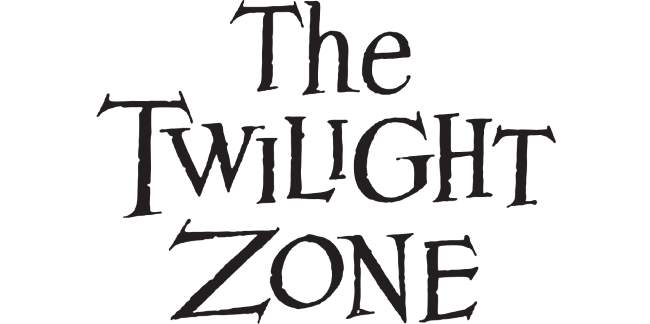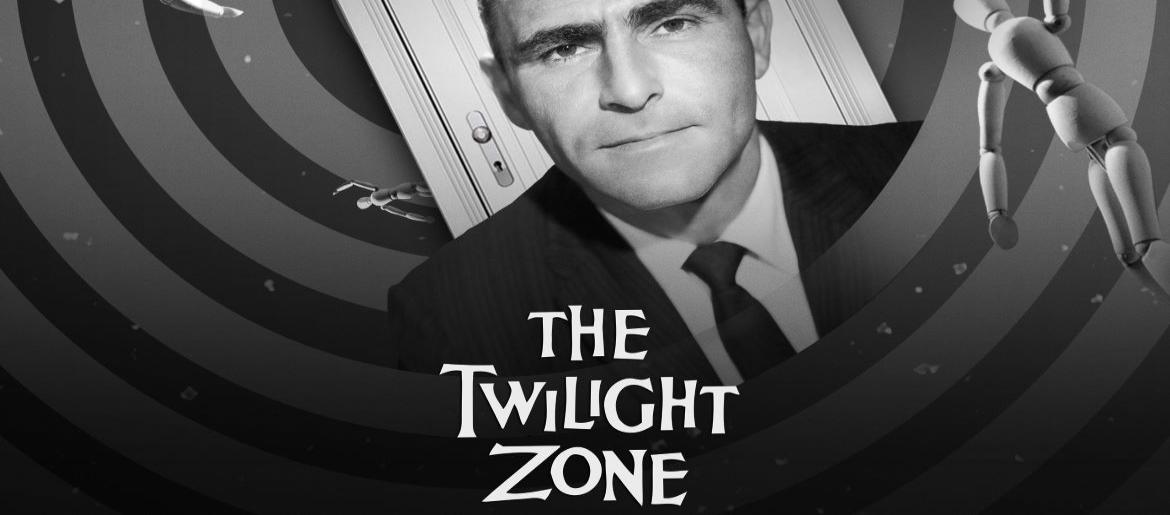
The Twilight Zone Font
The Twilight Zone Font stands as one of television’s most memorable typefaces, forever linked to the eerie, mind-bending atmosphere of the classic anthology series. Its slightly warped serif style creates an immediate sense of mystery and suspense, perfectly reflecting the show’s unsettling tales that drift between reality, fear, and the unknown.
Designers frequently use the Twilight Zone font for retro themes, mysterious posters, or any project that needs a haunting, otherworldly feel. Its distinctive character makes it instantly recognizable and ideal for atmospheric designs.
About The Twilight Zone
The Twilight Zone, created by Rod Serling and first aired in 1959, is a groundbreaking anthology series exploring morality, human psychology, the supernatural, and the strange. Known for its shocking twists and intelligent storytelling, the show has influenced generations of writers, filmmakers, and creators, securing its reputation as a timeless milestone in sci-fi and horror television.